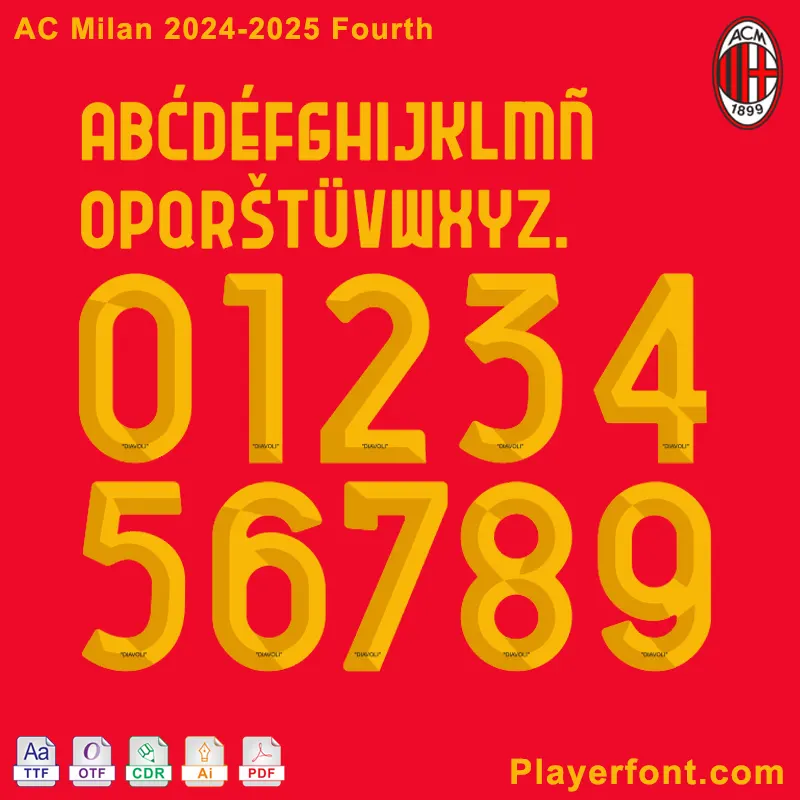
AC Milan 2024-2025 Fourth Font Download.
Get the AC Milan 2024-25 Fourth Font Download, designed for the club’s latest fourth kit. This high-quality typeface is used for player names and numbers on the official jerseys, making it perfect for designers, collectors, and fans who want an authentic look.